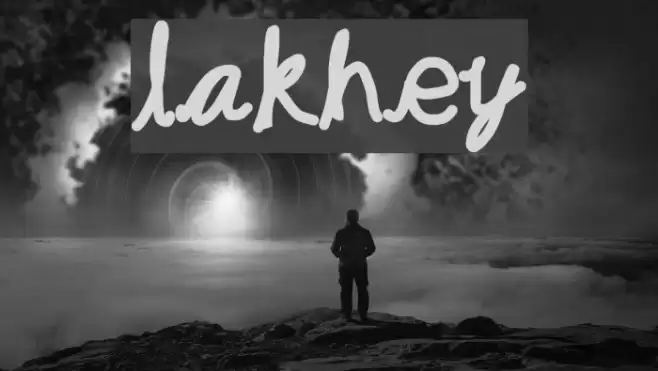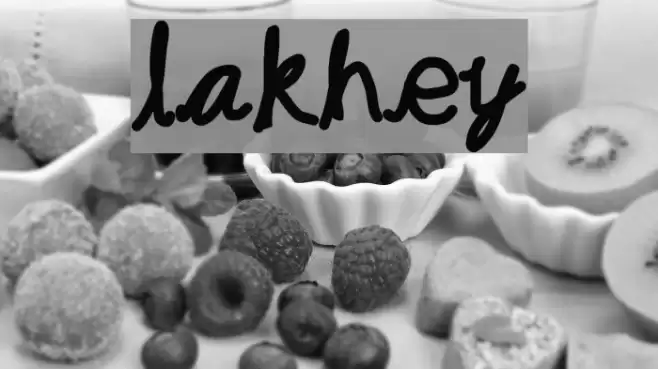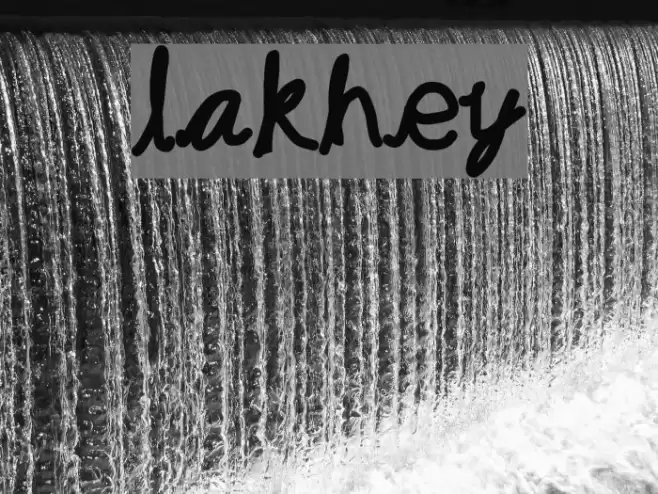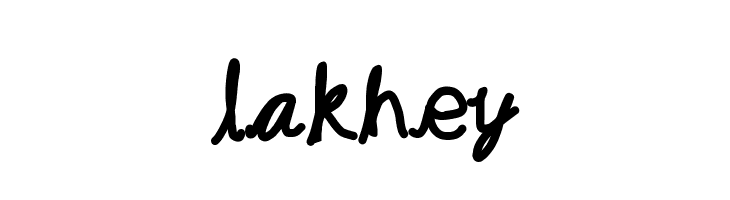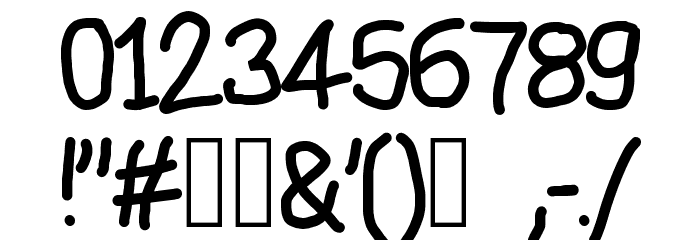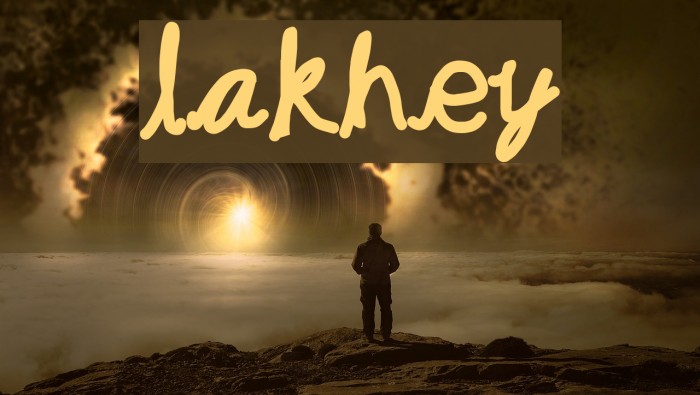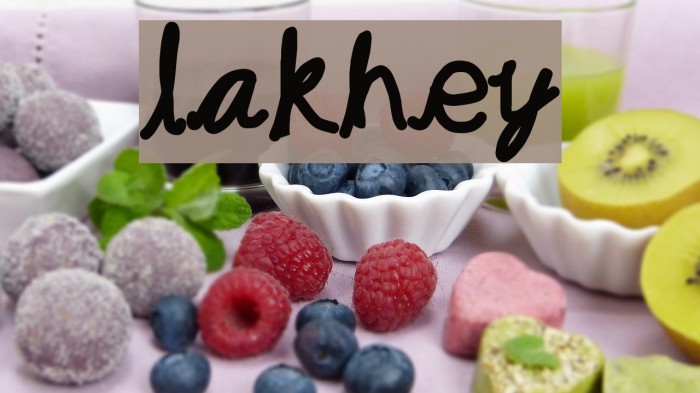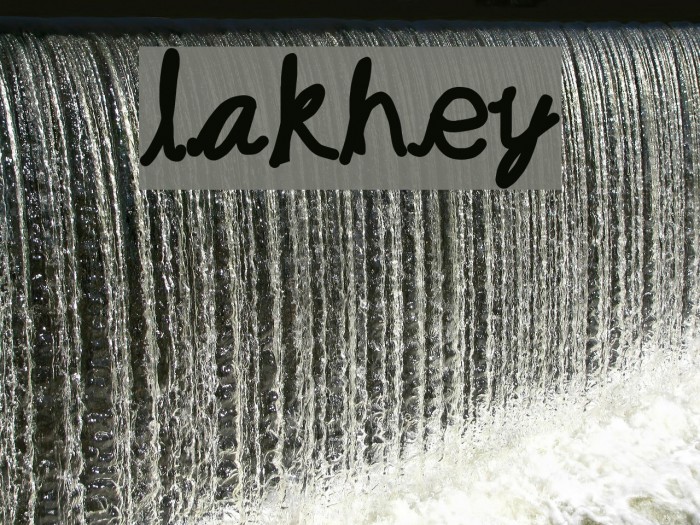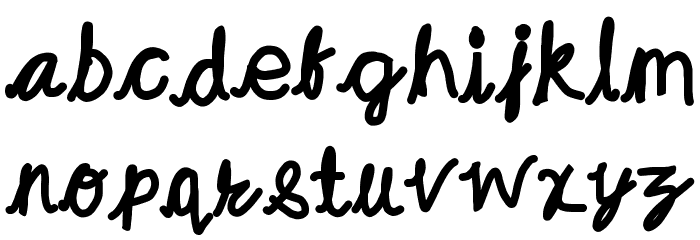
lakhey Font
lakhey Description
This font features a playful, handwritten style with a casual and informal appearance. The letters are slightly irregular, giving it a personal and approachable feel. The uppercase letters are bold and prominent, while the lowercase letters maintain a consistent flow with rounded edges. Numbers and special characters follow the same handwritten aesthetic, making them suitable for creative projects. The overall design is dynamic and lively, perfect for adding a touch of personality to any text.
A playful, handwritten font with a casual and informal style from Uncategorized fonts.
- Proposed Projects: Ideal for greeting cards, children's books, personal blogs, and creative branding projects.
- Overall Style: Casual, Playful
- Use Case: Headlines, Logos, Informal Text